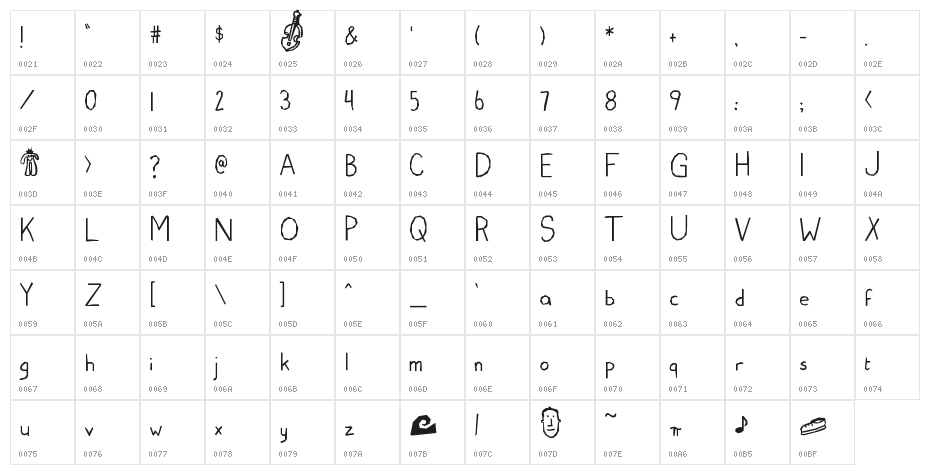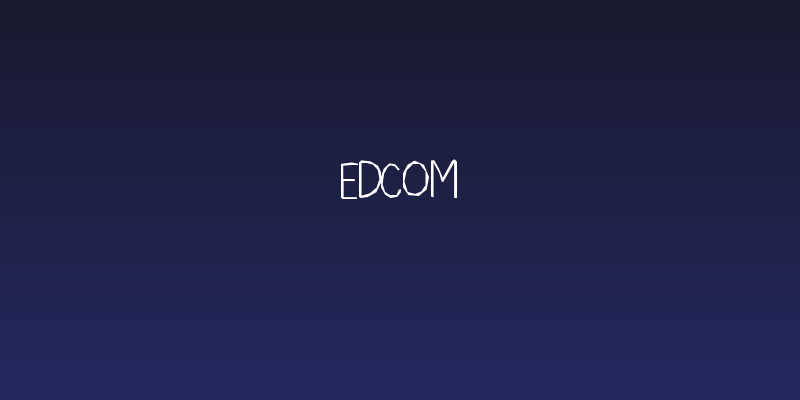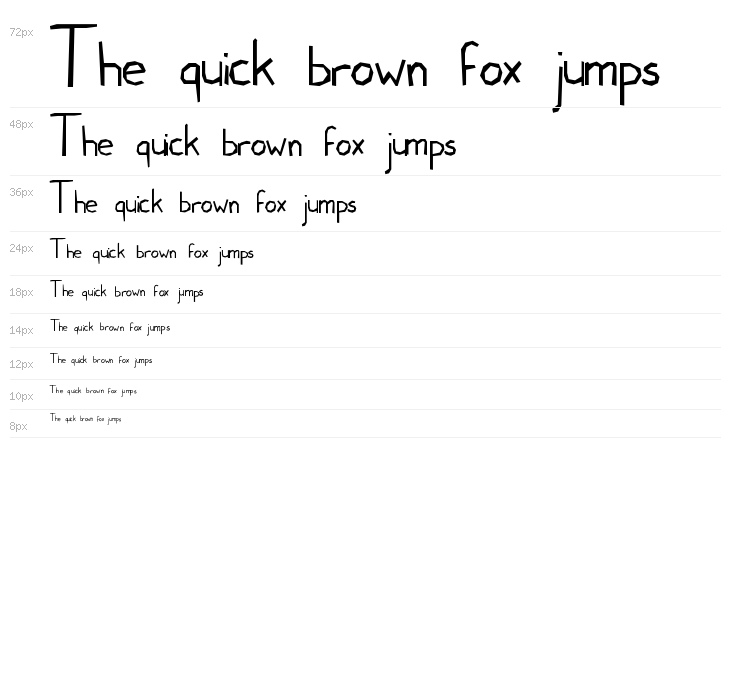
edcom Font
edcom Description
This font features a unique, hand-drawn style with irregular, angular lines that give it a playful and quirky appearance. The uppercase letters are tall and narrow, while the lowercase letters maintain a consistent height, creating a cohesive look. Numbers and special characters follow the same design principles, adding to the font's distinctive character. The overall design is reminiscent of doodles or sketches, making it ideal for creative and informal projects. The font's irregularities and uneven strokes add to its charm, making it stand out in any design.
| Use Case | Headlines, Posters, Creative projects |
| Proposed Projects | Ideal for children's books, comic strips, playful branding, and creative posters. |